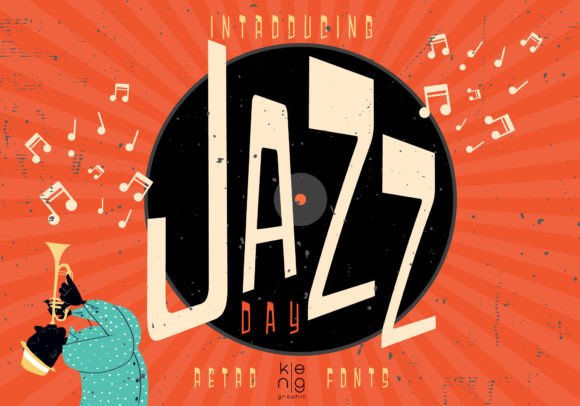
Introducing Jazz Day Font: The Best Font for Science Poster!
Are you tired of boring and outdated fonts that fail to grab attention? Look no further! Jazz Day Font is here to revolutionize your designs and captivate your audience. Created by the talented Keng Graphic, this comic-style retro display font packs a powerful punch that will make your content instantly recognizable and impossible to ignore.
With Jazz Day Font, your designs will exude youthfulness and courage, making it the perfect choice for various applications. Whether you're working on comic book-style projects, online games, love shirts, posters, movie titles, or eye-catching social media posts, this font will take your creations to the next level.
Imagine the impact of your science posters when they are adorned with Jazz Day Font. Its playful yet professional appearance will effortlessly convey complex concepts while adding a touch of creativity and excitement. Say goodbye to dull and mundane science posters and welcome a fresh and dynamic approach that will leave a lasting impression on your audience.
Not only does Jazz Day Font elevate the visual appeal of your designs, but it also enhances readability. Its carefully crafted letterforms ensure that your messages are conveyed with clarity and precision. No more struggling to decipher poorly designed fonts – Jazz Day Font guarantees a seamless reading experience for your audience.
But wait, there's more! Jazz Day Font is not limited to science posters alone. Its versatility knows no bounds. It's a font that transcends industries and niches, making it a must-have for any designer or creative individual. Let your imagination run wild and explore the endless possibilities this font offers.